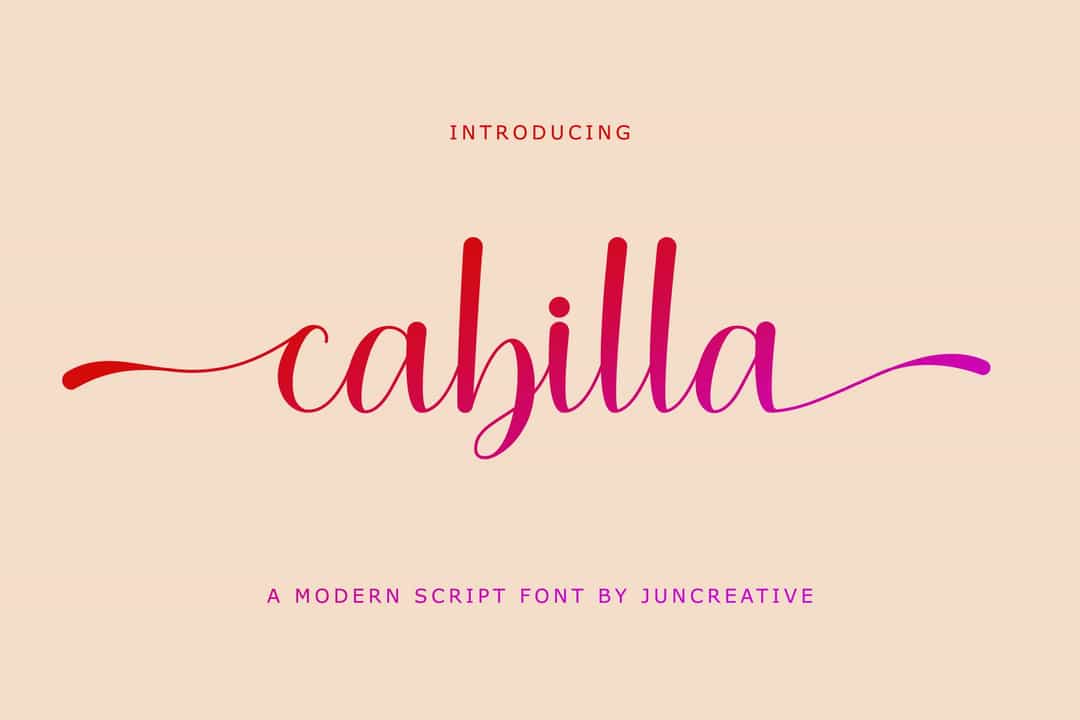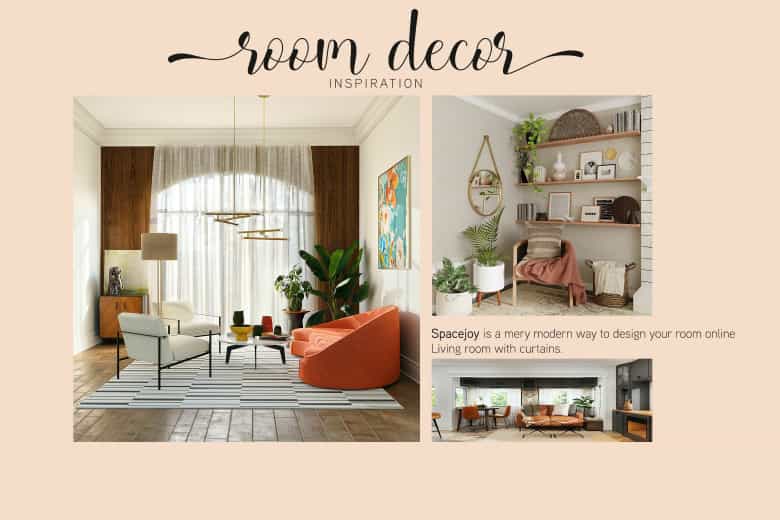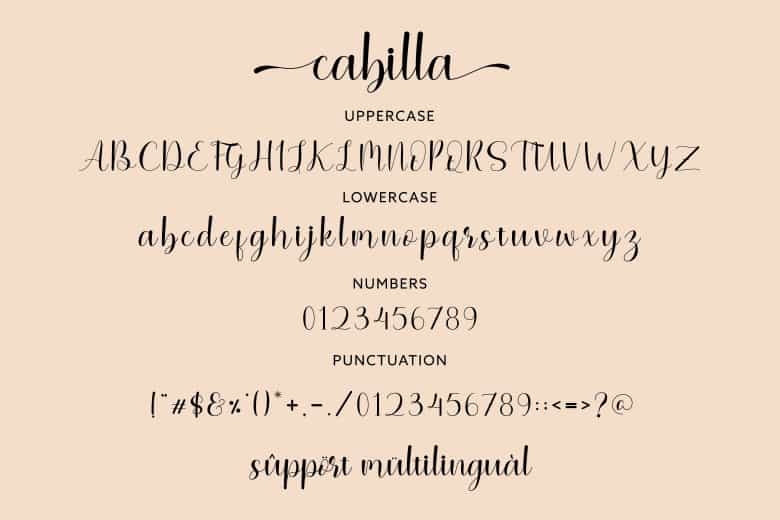
Cabilla is an elegant handwritten script font with an informal style. Perfect for any type of content – invitations or branding purposes in particular – and editorial designs; Cabilla makes for beautiful lettering.